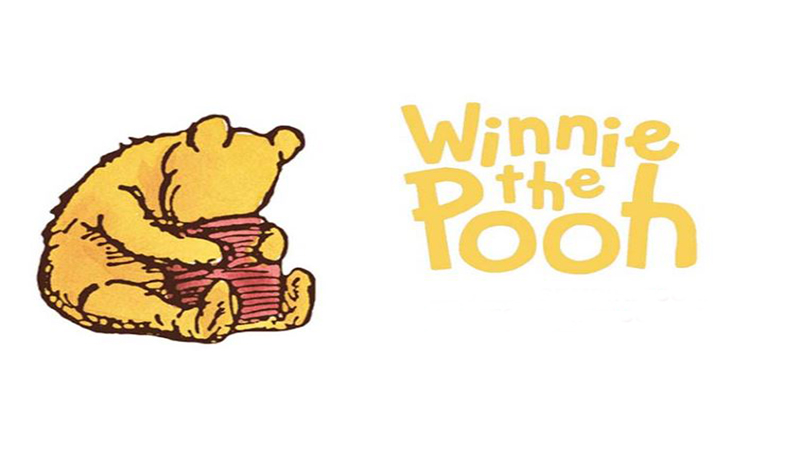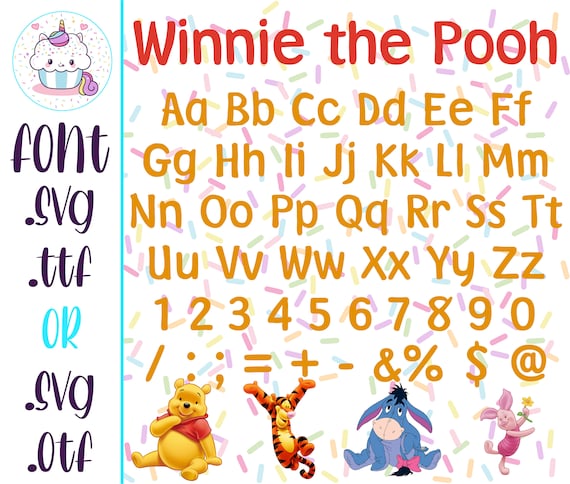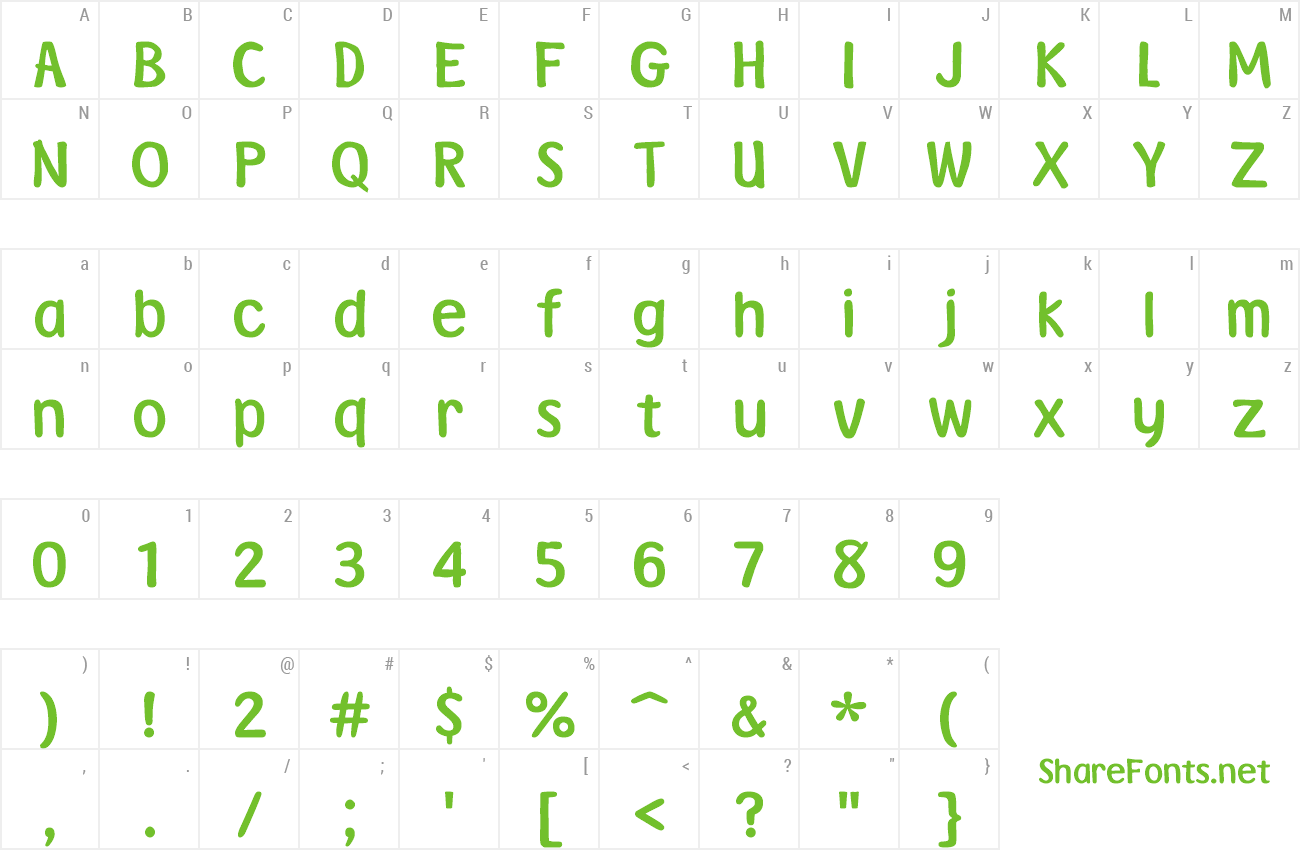
Winnie the pooh font name. May 02, 2011 at 22:33. Search for other dingbats and cartoon fonts. It is highly unlikely that you'll be able to find winnie the hoop for free.
Milne, the author of the pooh bear series of children’s books. Milne also included a poem about the bear in the children's verse book when we were very young and many more in now we are six. Yes, the link you provided is for winnie the pooh fonts, but they are not the same as the one seen in the image.
The font that is used in the winnie the pooh logo is a typeface by the name of pooh. Search from a wide range of typography fonts Baskerville, bembo, garamond, janson, palatino, and times roman (although this is more of a newspaper font) are the most commonly used typefaces for book body text.
Winnie the pooh tigger fonts. Winnie the pooh font is known for its versatility, elegance, and creativity. Please, talk with the author for commercial use or for any support.
It features charming alternates and vintage style. Winnie the pooh font family. Pooh is free for personal use only.
About this font, when we research its features. Milne and english illustrator e. Winnie the pooh free download.
Milne and english illustrator e. It belongs to the category of disney fonts, thus being used frequently in the brand logo of winnie the pooh. Looking for winnie the pooh fonts?
If you want to recreate the same whimsical and playful font design that is synonomous with the pooh character, and one that. And this single style has enough characters which help to create small or single design easily. Click to find the best 8 free fonts in the winnie the pooh style.
Winnie the pooh cartoon font is a charming and cute cartoon disney typeface. Winnie the pooh font svg alphabet for cricut, silhouette instant download, font type lettering decal. Milne who was the author of the pooh bear series of childrens books.
This font mirrors almost exactly the same one that was created by a. Truetype and opentype fonts available. After that, you can easily utilize it for personal and.
This font has a unique cheerful style that will elevate your design projects to a uniquely higher level. We can see that winnie the pooh font is a classy cartoon typeface. This font’s unique and cheerful style will make your design outstanding and promote a.